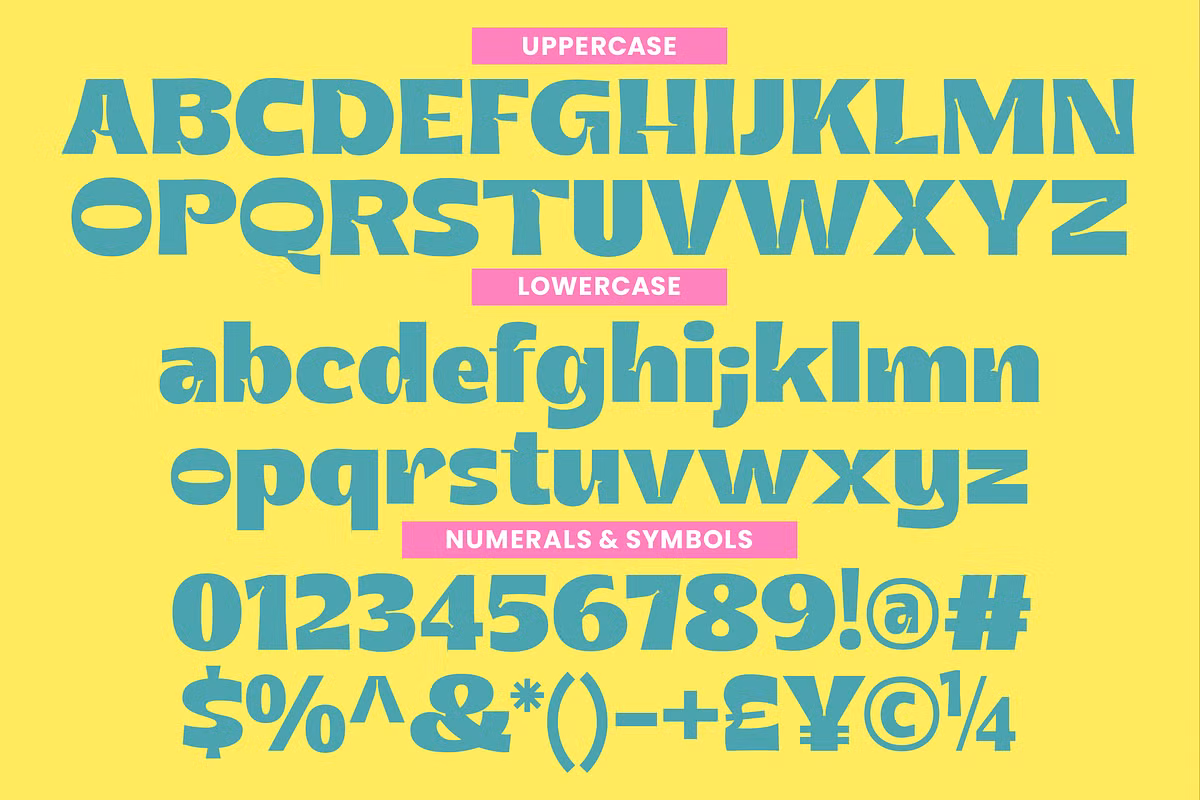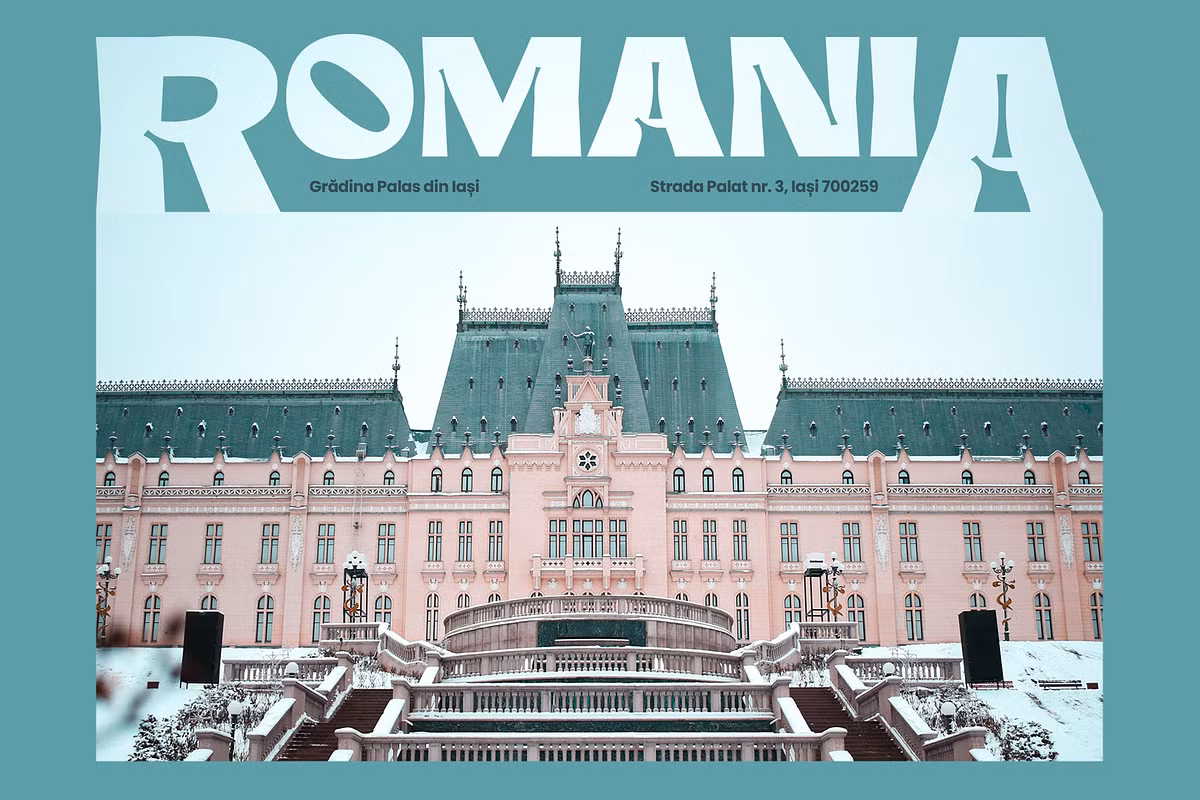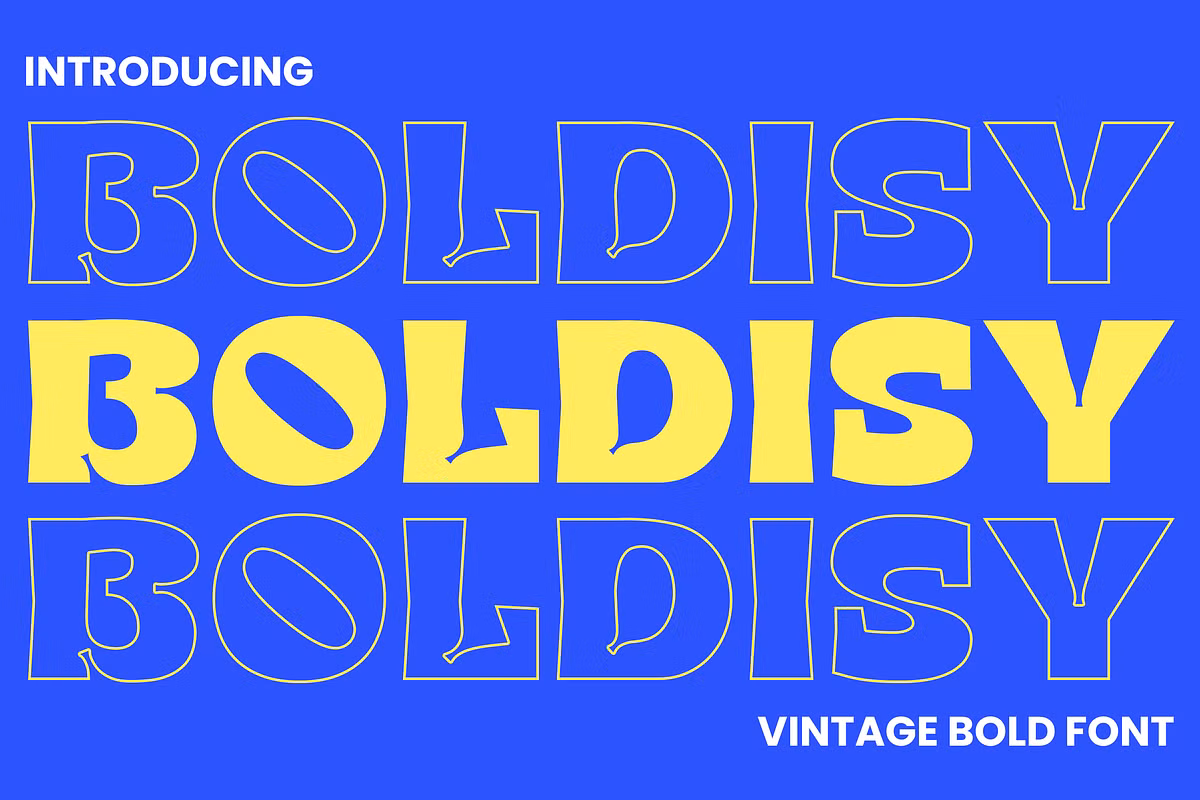
Boldisy Font
Designer: Graphue
Boldisy Font – A Vintage Bold Font. From logos and posters to packaging and apparel, Boldisy adds timeless appeal and makes a lasting impression. Boost your brand’s visual identity with the stylish charm of this font.